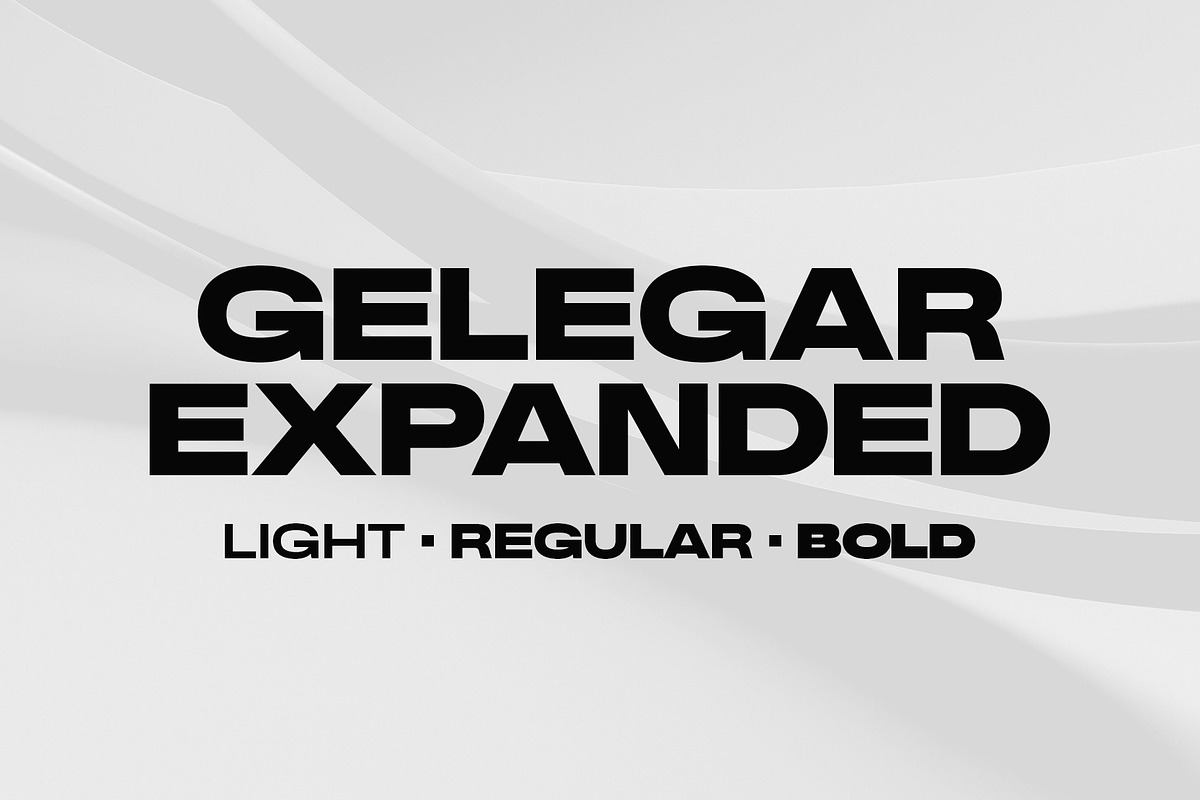
Please note, to use this font for commercial purposes, you must purchase the full version. Gelegar Expanded is a bold and modern sans-serif font that features wide, clean lines and a contemporary feel. Perfect for logos, headlines, branding, and design projects that need a strong, impactful style, this font brings clarity and sophistication to any design. Whether you're designing for a tech brand, a corporate identity, or a creative campaign, Gelegar Expanded adds a sleek and professional touch to your work. Test it out and enjoy free download access for personal use. Experience the bold, modern style of Gelegar Expanded Font Free Download before purchasing the commercial license. Add a clean, strong touch to your designs with Gelegar Expanded.